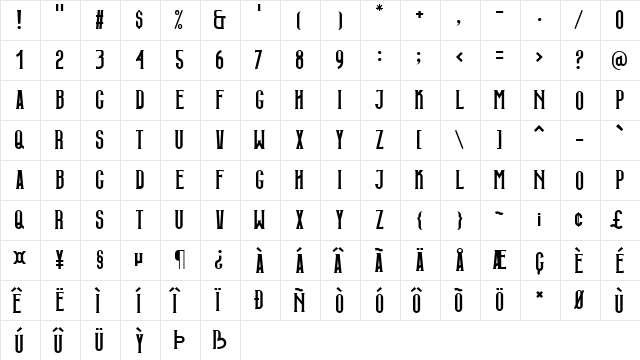
Naonweh Serif
| Style | Serif |
| Foundry | Hindra Permana |
Design Context for Naonweh Typeface
Naonweh carries the refined structure of traditional serif typography, with bracketed terminals and considered proportions that communicate credibility and craft.